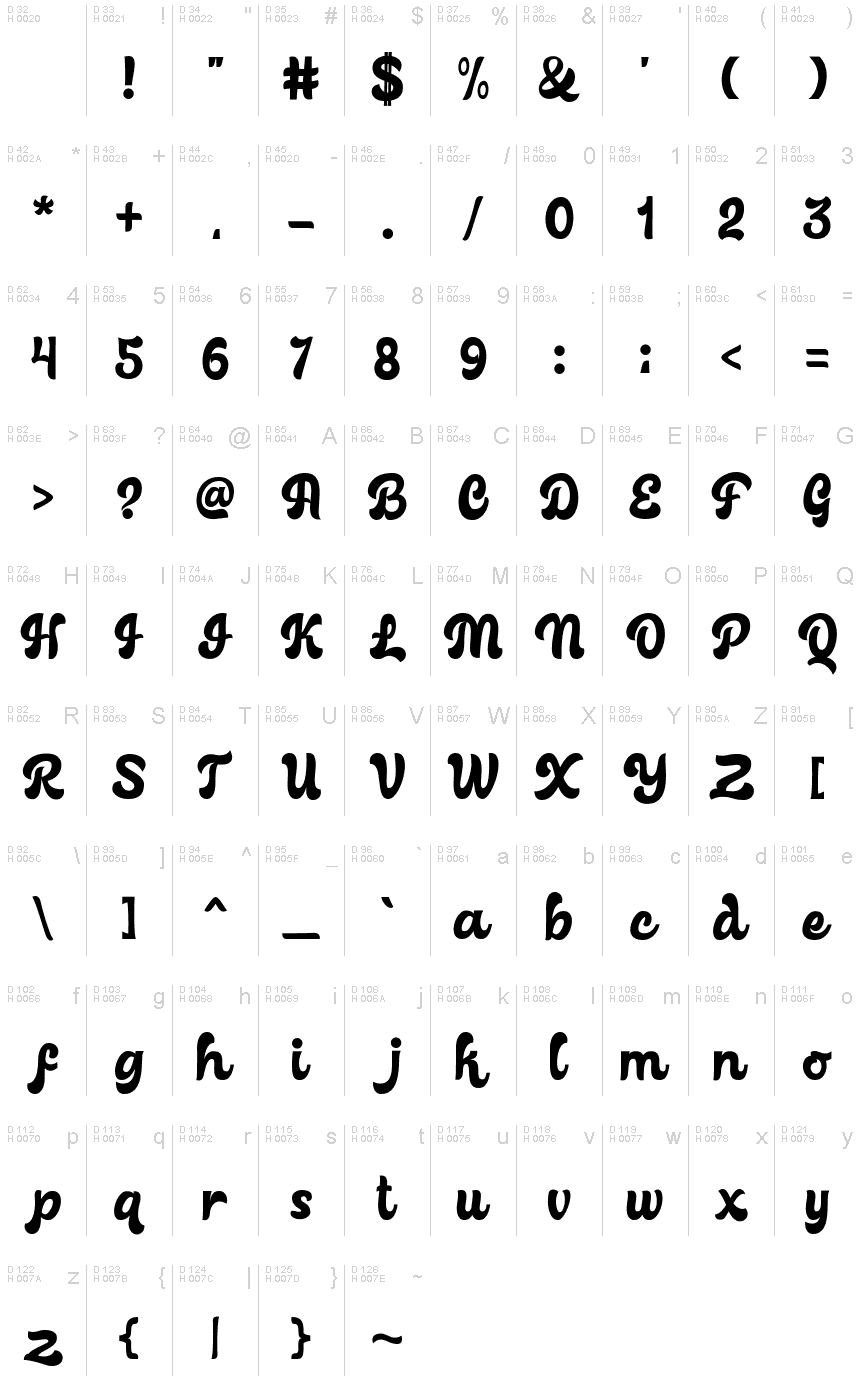
Danity
Danity, a bold font by Sesa Grafika, boasts an old school smooth brush style that adds a touch of vintage charm to your projects.
Its bold weight exudes confidence and commands attention, making it perfect for eye-catching headlines, logo designs, and posters. With its elegant curves and vintage appeal, Danity lends itself effortlessly to fashion magazines, retro-inspired branding campaigns, and artful packaging designs.
Let this versatile typeface transport you back in time while adding a modern twist to your creative endeavors.